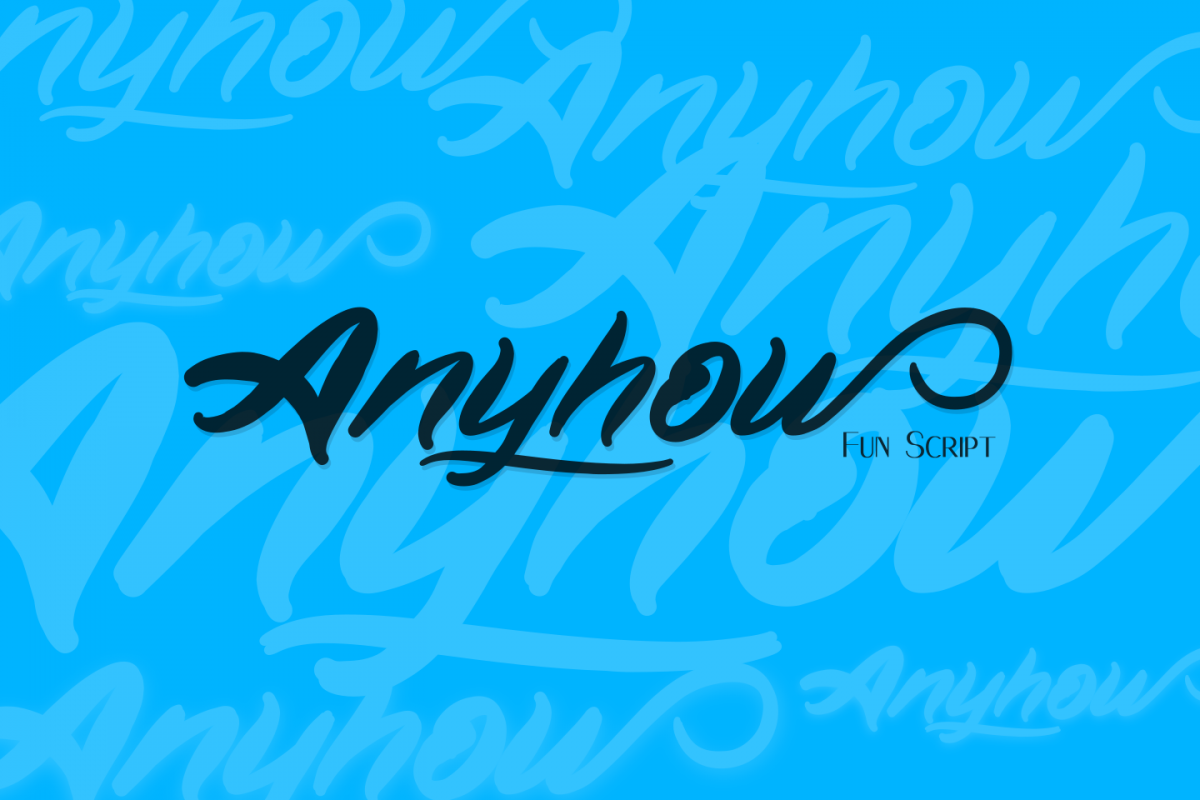
Anyhow Fun Script
Anyhow
Anyhow is a fun script for energetic people. use it for your design and it will make your product awesome. it contains complete punctuation and supports multilingual